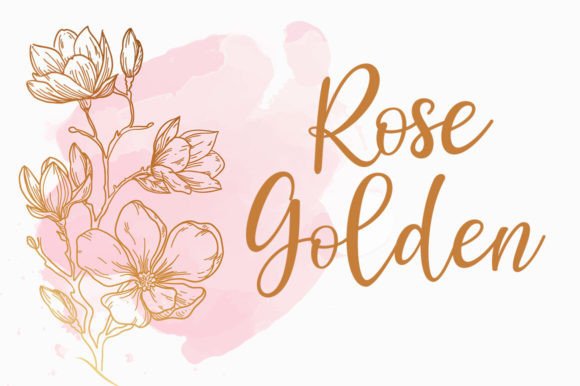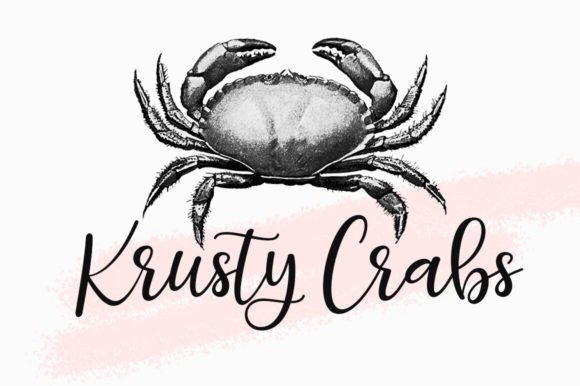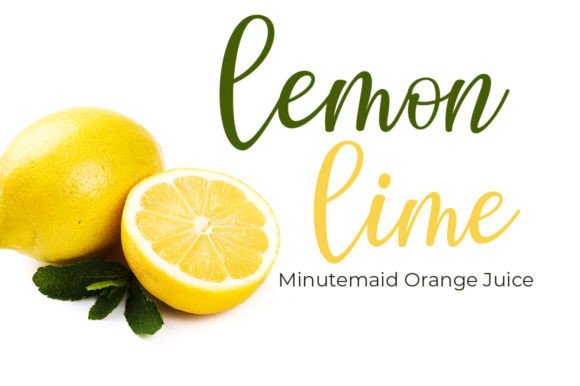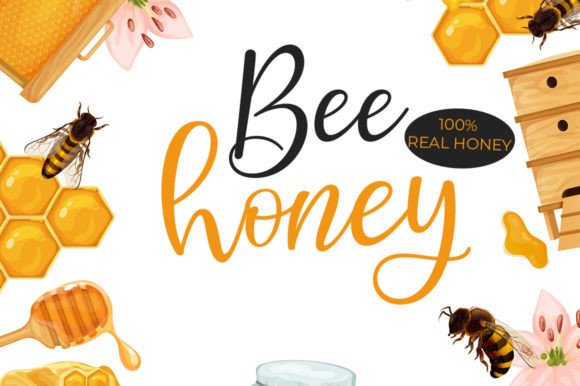
Unleash the Beauty of Fresh Fruits Font
Have you ever been browsing through a vintage market or antique store, and stumbled upon a beautifully handwritten invitation that caught your eye? Maybe it was the elegant script, the way the words seemed to dance on the page, or the sense of nostalgia that came with it. Whatever it was, it probably left a lasting impression on you, and made you wish you could create something similar.
Well, now you can! Introducing the Fresh Fruits Font, a stylish and incredibly elegant script font that’s perfect for adding a handwritten touch to your designs. Whether it’s a wedding invitation, a thank you card, or a logo, this font is sure to make your designs stand out. And for designers, it’s a valuable tool for adding a personal and unique touch to their work.
With the Fresh Fruits Font, you can create beautiful and elegant designs that are sure to impress. So why settle for ordinary when you can have extraordinary? Try the Fresh Fruits Font today and see the difference it can make in your designs.
Fresh Fruits Font Key Features
- Font Family: Fresh Fruits Font is a unique and playful font family with 8 different styles, each with its own set of characters.
- Character Count: Each style includes a wide range of characters, including uppercase and lowercase letters, numbers, and punctuation marks.
- Unique Characteristics: The font features a stylized, hand-drawn design with bold lines and vibrant colors, making it perfect for food-related branding and packaging.
Fresh Fruits Font Review
I recently had the chance to work with the Fresh Fruits Font, and I must say it’s a unique and eye-catching choice for any project. ✨ The font’s playful and whimsical feel immediately stood out to me, making it perfect for designs targeting a younger audience or for adding a touch of fun to a brand’s identity.
Here are some of the things I loved about the Fresh Fruits Font:
- ✨ Its versatility in both digital and print applications
- ✨ The extensive character set, which includes a wide range of punctuation and special characters
- ✨ The font’s ability to be easily customized and manipulated in design software
- ⚠️ The font may not be suitable for formal or professional projects, as its playful nature may come across as immature
- ⚠️ The font’s bold and colorful aesthetic may not be accessible for users with visual impairments or those who prefer more subtle typography
- ⚠️ Some characters may not render correctly in certain fonts or operating systems, which could lead to compatibility issues
Overall, I think the Fresh Fruits Font is a great choice for designers looking to add a pop of fun and personality to their projects. While it may not be suitable for every project, it’s definitely a great option to have in your toolkit.
The Fresh Fruits Font is perfect for:
- Creativity and design projects
- Marketing materials and social media graphics
Tips for Getting the Most Out of Fresh Fruits Font
For best results:
- Use the font in conjunction with colorful and playful graphics.
- Combine the font with